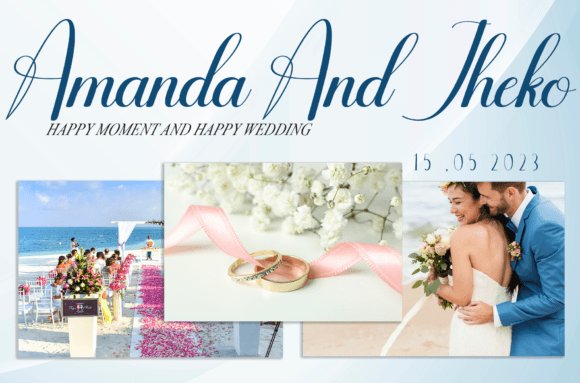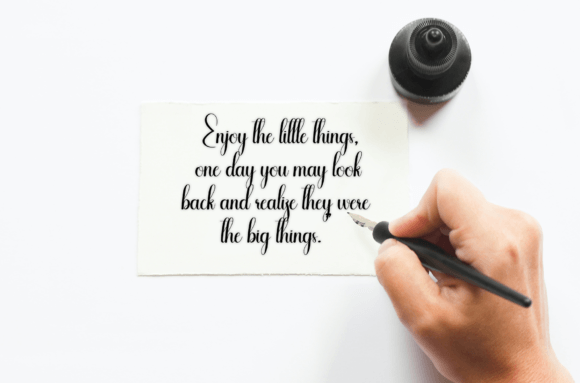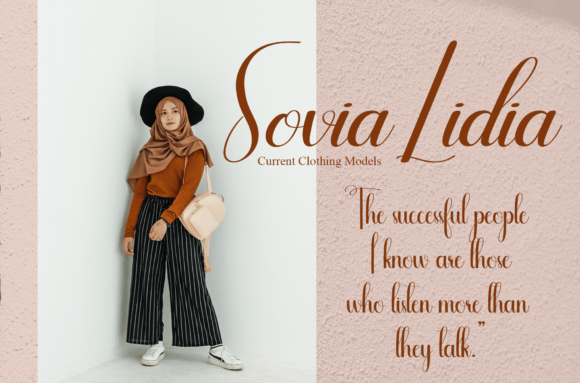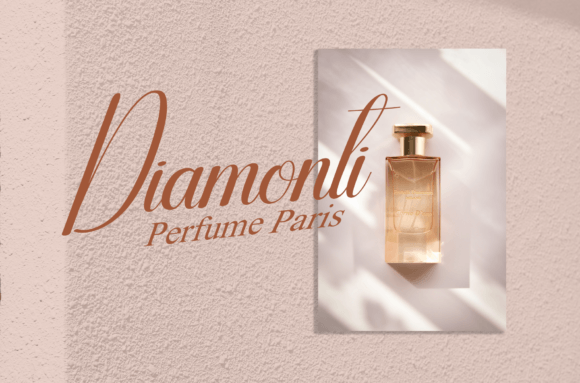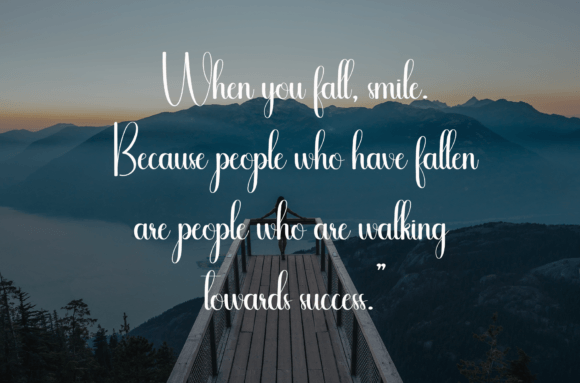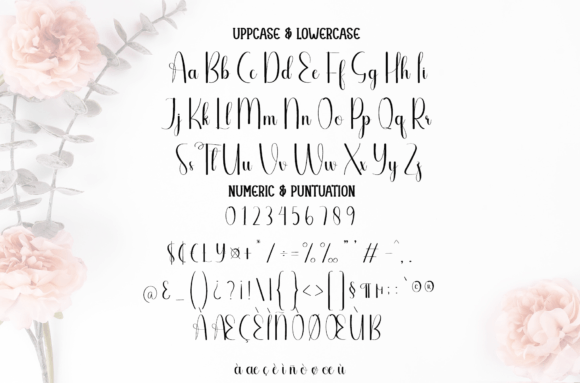
The Perfect Touch: Introducing Heartfelt Font
Have you ever stared at a blank sheet of paper, waiting for inspiration to strike? You’ve got a project to complete, but your creativity is stuck in neutral. Suddenly, a friend’s handwritten note or a beautifully designed wedding invitation catches your eye, and it sparks a chain reaction of ideas. You envision a custom invitation that exudes warmth and personality, something that says ‘I care’ in every stroke of the pen.
That’s where the Heartfelt Font comes in – a sweet and friendly handwritten font designed to add a touch of whimsy to your designs. Ideal for wedding invitations, cards, or any project that needs a fun and approachable vibe, this font is a game-changer for designers looking to add a personal touch to their work. With its fresh and neat aesthetic, Heartfelt Font is the perfect tool for bringing your creative vision to life.
Heartfelt Font Key Features
- Font Family: A beautiful, high-quality font family with multiple styles to suit various design needs.
- Unique Characteristics: Features elegant, flowing lines and subtle flourishes that evoke a sense of warmth and sophistication.
Heartfelt Font Review
Overall, I found the Heartfelt Font to be a unique and emotive choice for designers looking to add a touch of warmth to their projects. ✨ The font’s hand-drawn feel and subtle imperfections give it a personal, human touch that can be really effective in creating a sense of connection with the viewer.
The font’s versatility is another major strength. ✨ It works well in a variety of contexts, from digital design to print materials, and can be used to create everything from elegant invitations to playful advertisements. The font’s range of weights and styles also makes it easy to customize and adapt to different design needs.
However, there are some limitations to consider. ⚠️ The font’s readability can be a bit of an issue in smaller sizes or at a distance, and some users may find the hand-drawn feel to be too irregular or distracting. Additionally, the font’s uniqueness can also make it stand out in a way that’s not always desirable – in some cases, it may be better to stick with a more traditional or neutral font.
- Hand-drawn feel with subtle imperfections
- Unique and emotive design
- Highly customizable with a range of weights and styles
- Works well in digital and print design
Tips for Getting the Most Out of Heartfelt Font
Use Heartfelt Font for:
- Birthday and anniversary cards
- Personalized gifts and mementos
Experiment with different font sizes, colors, and combinations to create unique and eye-catching designs.
Alternatives to Heartfelt Font
Lato is a sans-serif font that is clean and modern. It is suitable for use in digital design, such as websites, apps, and advertising materials. Lato has a similar feel to Heartfelt Font, but with a more minimalist and sleek appearance.
Comparison: While Heartfelt Font has a more romantic and elegant feel, Lato is more modern and versatile, making it suitable for a wider range of applications.
Merriweather is a classic serif font that is perfect for use in print materials, such as books, magazines, and posters. It has a warm and inviting feel that is similar to Heartfelt Font, but with a more traditional and timeless appearance.
Comparison: While Heartfelt Font is more modern and versatile, Merriweather is more suited for traditional and formal applications, such as academic or literary works.
Montserrat is a sans-serif font that is designed for use in urban environments. It is clean, modern, and highly legible, making it suitable for use in digital design, such as websites, apps, and advertising materials. Montserrat has a similar feel to Heartfelt Font, but with a more edgy and modern appearance.
Comparison: While Heartfelt Font has a more romantic and elegant feel, Montserrat is more modern and urban, making it suitable for use in applications that require a strong, modern feel.